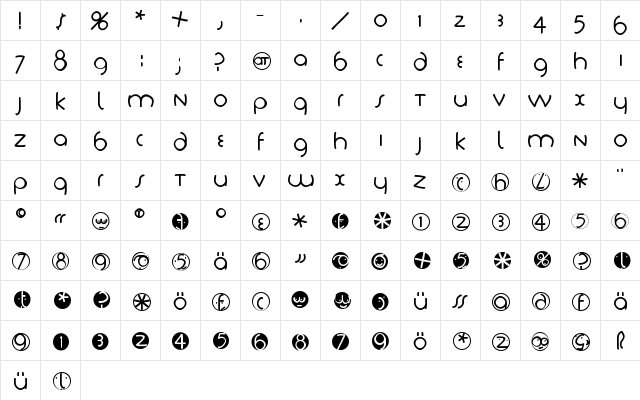
TschichLightFS Regular
Design Context for TschichLightFS Typeface
TschichLightFS takes a measured approach to typography — its balanced proportions and neutral character make it a reliable workhorse for both digital and print work. Its slender proportions lend an understated elegance to any composition.